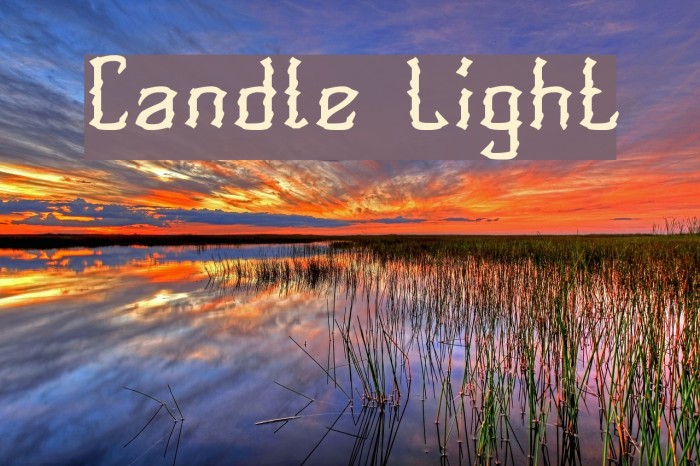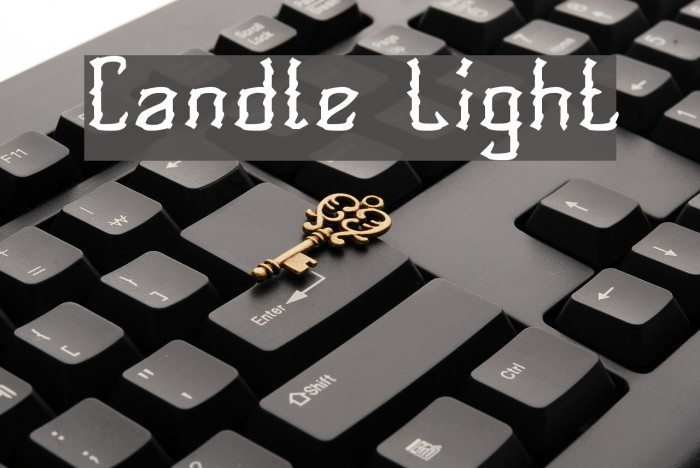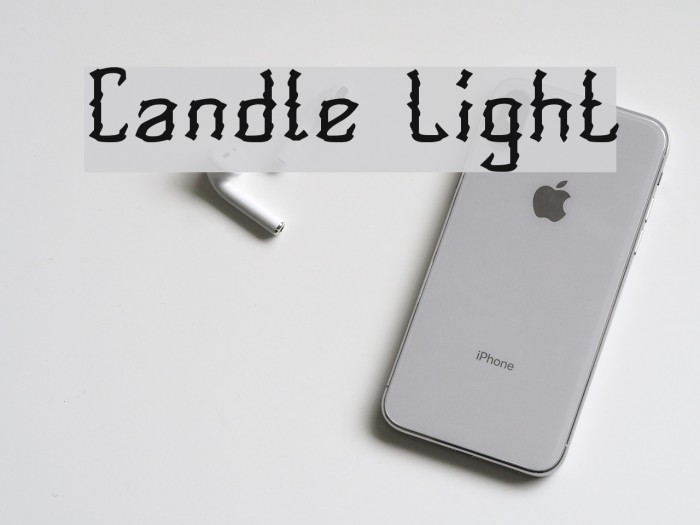
Candle Light Font
This font features a unique, decorative style with a gothic influence, characterized by its sharp, jagged edges and uneven strokes. The uppercase and lowercase letters maintain a consistent design, with an emphasis on verticality and pointed serifs that give it a dramatic flair. The numbers and special characters follow the same aesthetic, ensuring a cohesive look across all glyphs. The font's intricate design makes it stand out, ideal for projects that require a bold and artistic touch.
A decorative, gothic-inspired font with sharp, jagged edges and pointed serifs.
- Proposed Projects: Ideal for Halloween-themed designs, gothic posters, album covers, and artistic branding projects.
- Overall Style: Gothic, Decorative